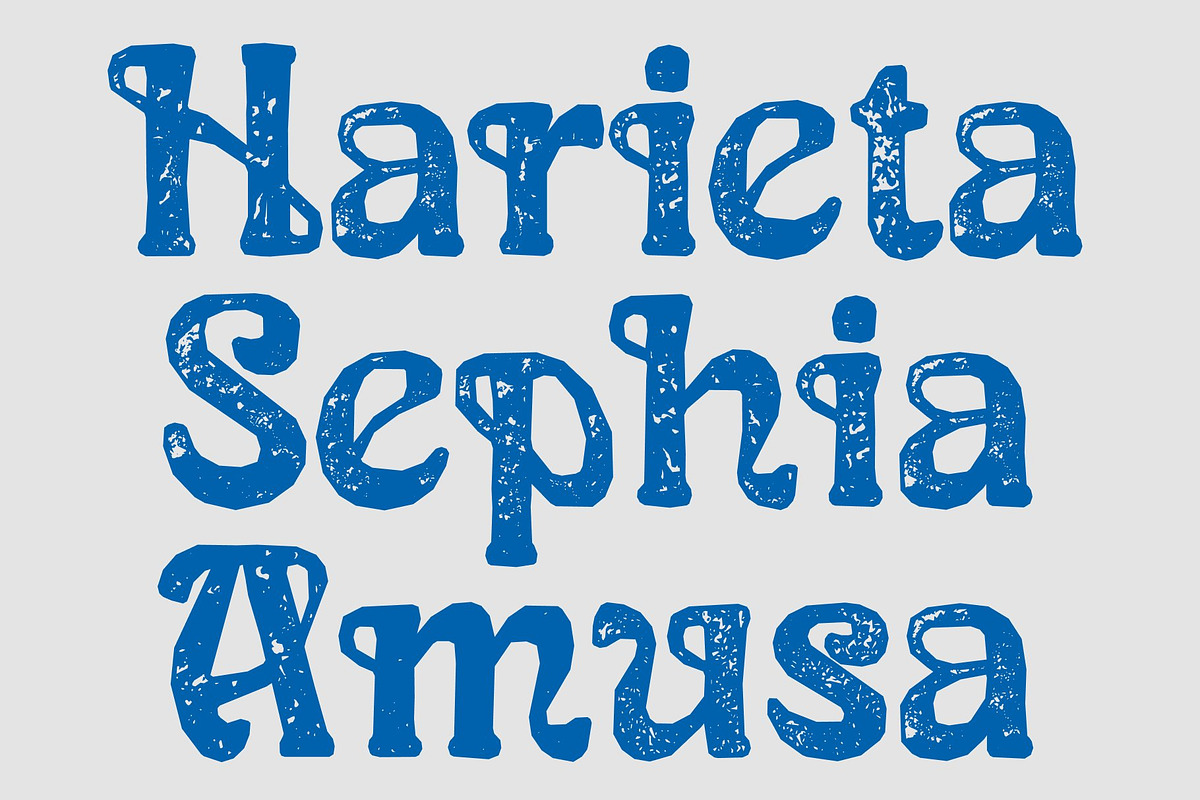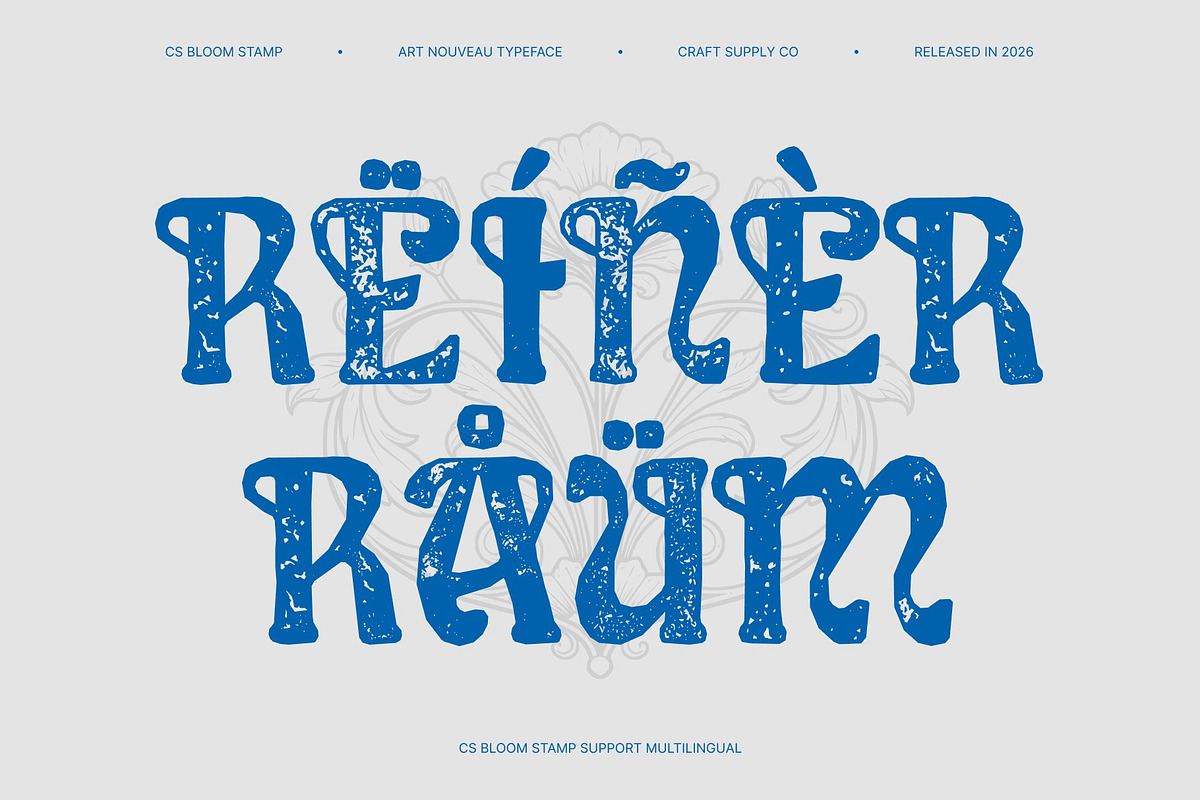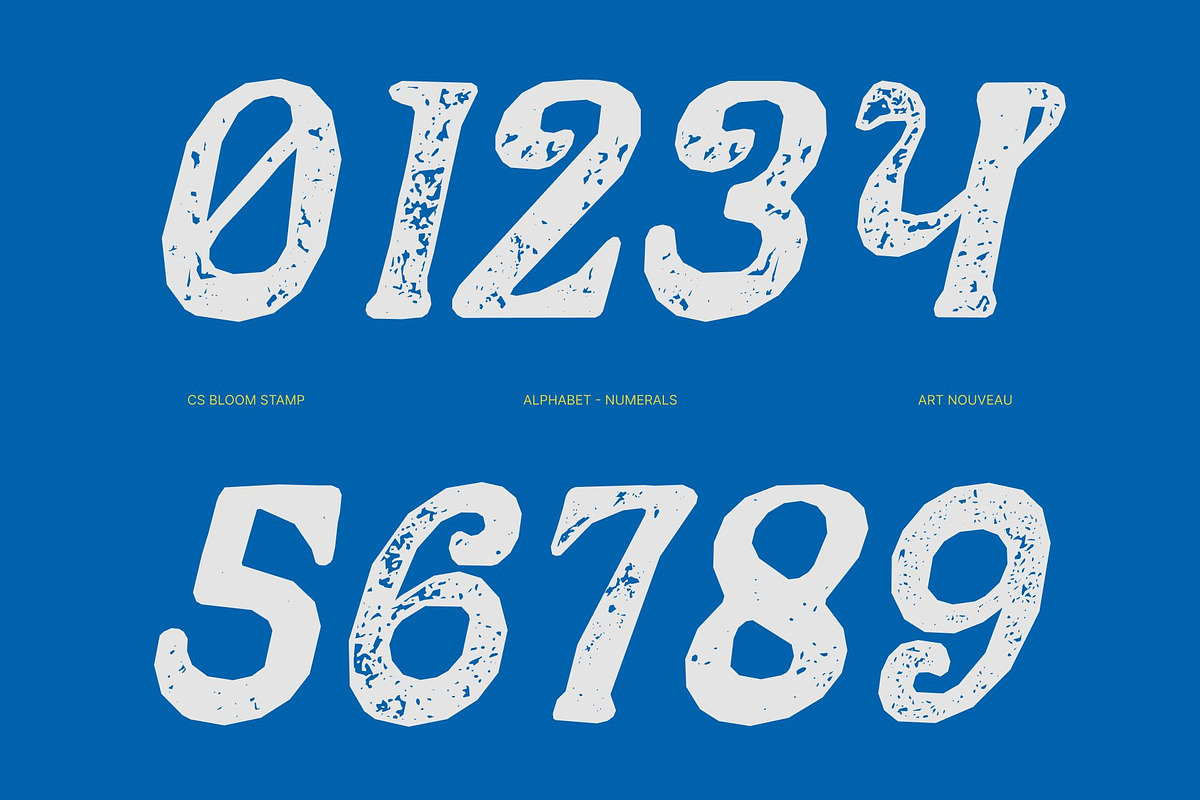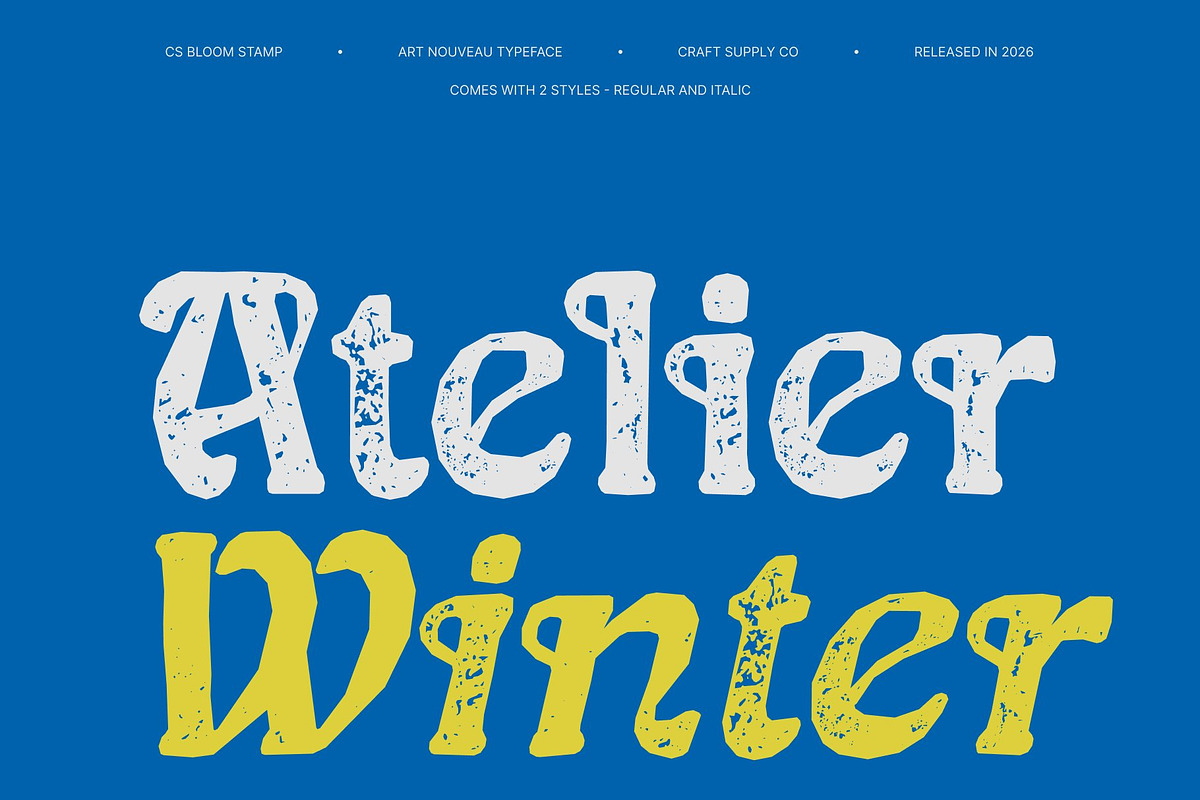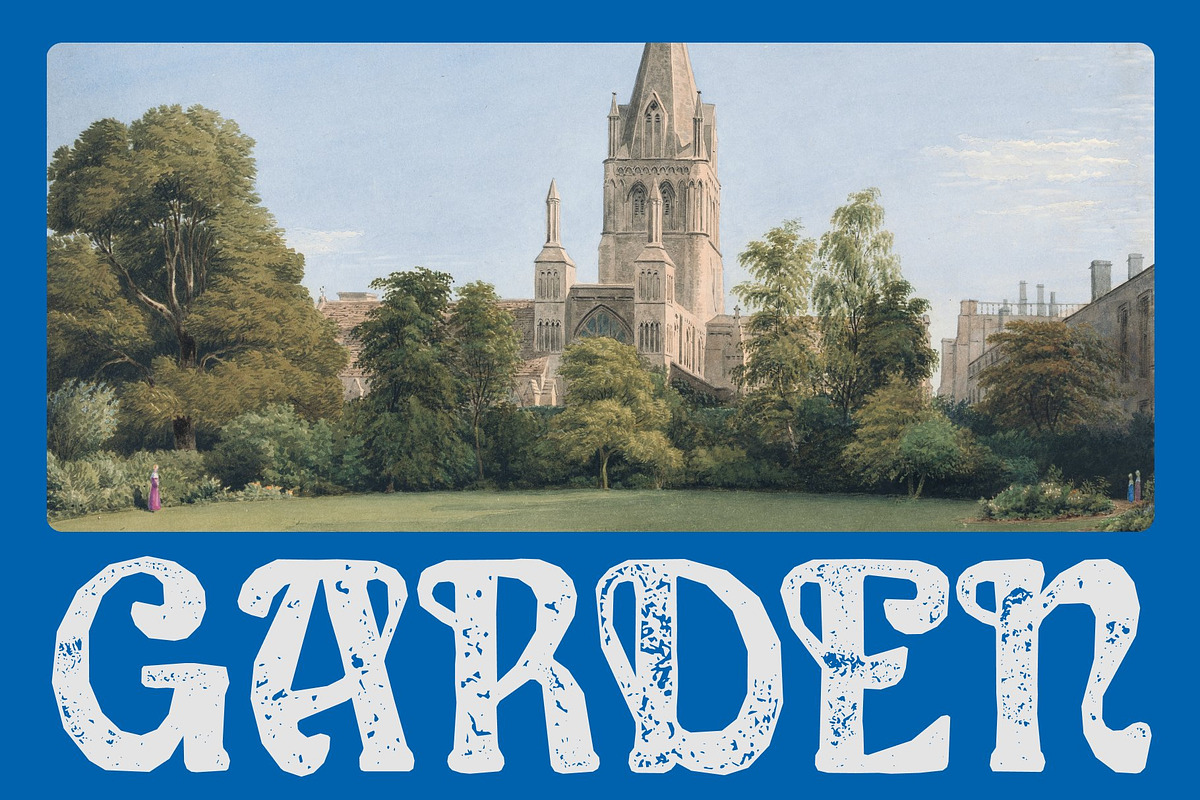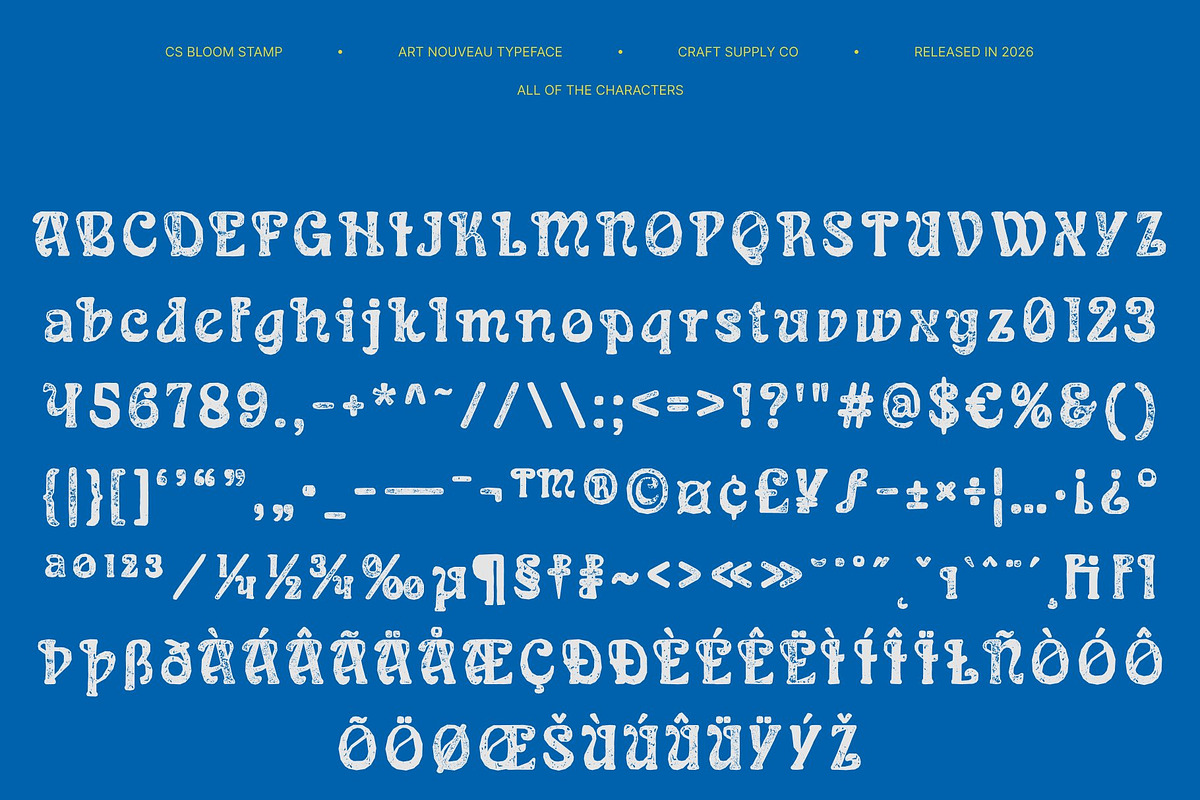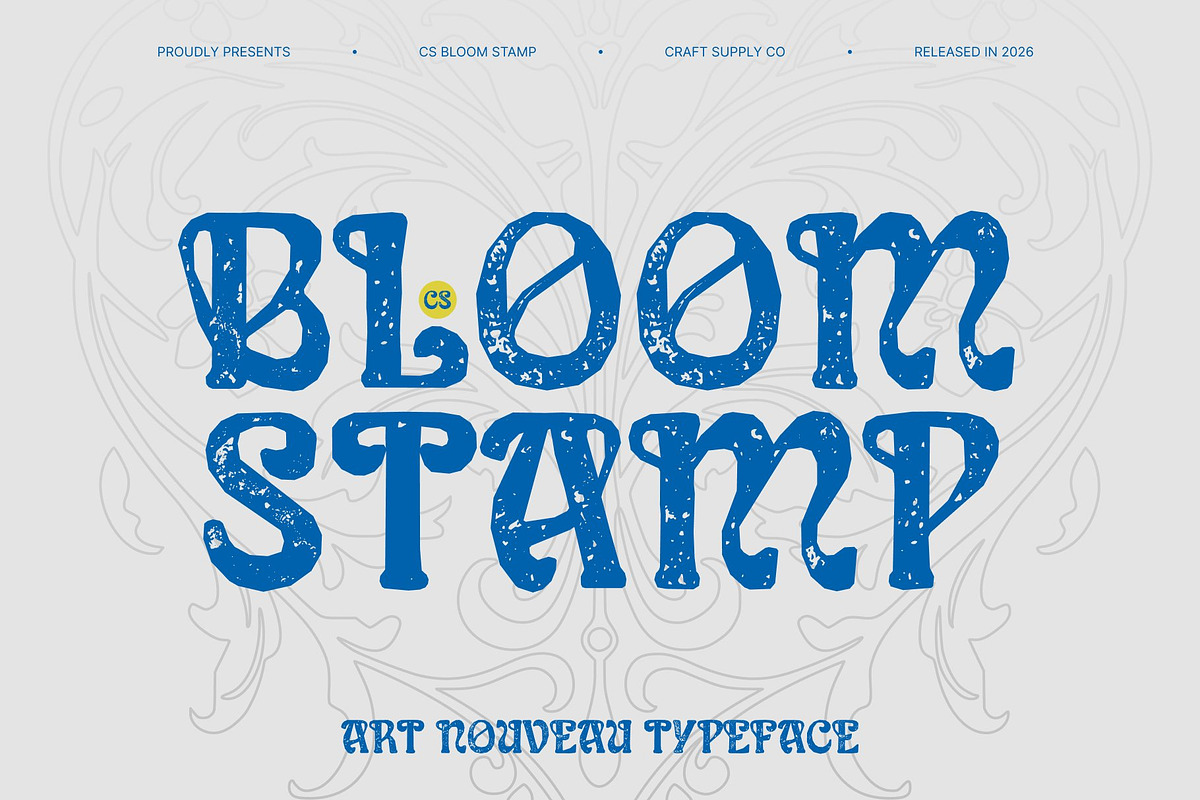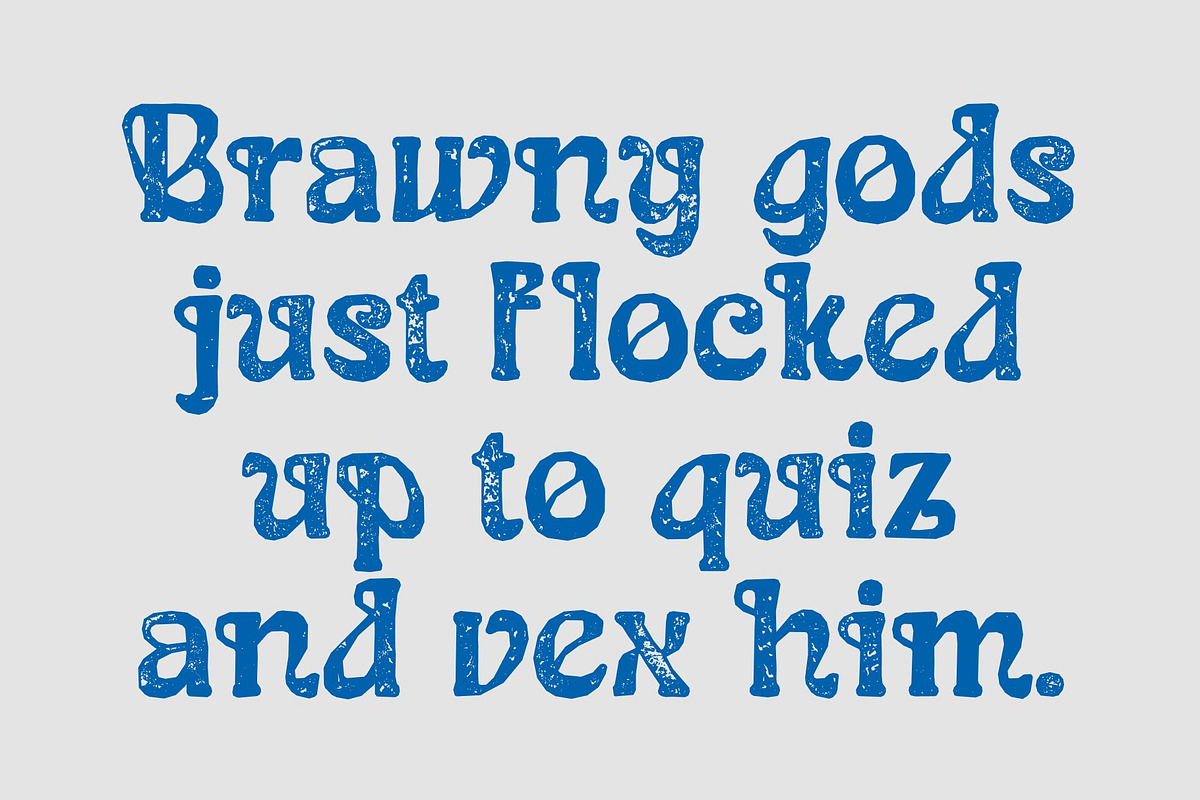
CS Bloom Stamp
CS Bloom Stamp – Art Nouveau Serif with Vintage Artistic Texture
Art Nouveau Elegance with Handcrafted Character This reinterprets the graceful Art Nouveau serif style with a subtle stamped texture that evokes classic printmaking and antique posters. Its flowing curves, ornamental details, and fine lines remain elegant and romantic, now enhanced by gentle ink variations and softly distressed edges that give the font a warm, handcrafted presence.
Romantic Flourishes with Aged Beauty The decorative elements and organic letterforms of this font gain added depth through the stamp effect. Slight irregularities mimic the charm of early 20th-century printing, creating a nostalgic atmosphere that feels artistic, refined, and timeless. This balance of elegance and texture makes the font visually rich without overpowering its delicate beauty.
Perfect for Vintage Luxury and Artistic Design This is ideal for wedding invitations, luxury branding, boutique packaging, editorial headlines, and heritage-inspired visuals. Its stamped finish enhances the sense of authenticity and old-world charm, making every design feel thoughtful, romantic, and artfully crafted.
Timeless, Decorative, and Expressive By blending classic Art Nouveau ornamentation with a subtle vintage stamp texture, this font delivers a distinctive typographic voice. It celebrates beauty, craftsmanship, and artistic heritage perfect for designers seeking elegance with character and a truly nostalgic soul.
CS Bloom Stamp Regular
CS Bloom Stamp Italic